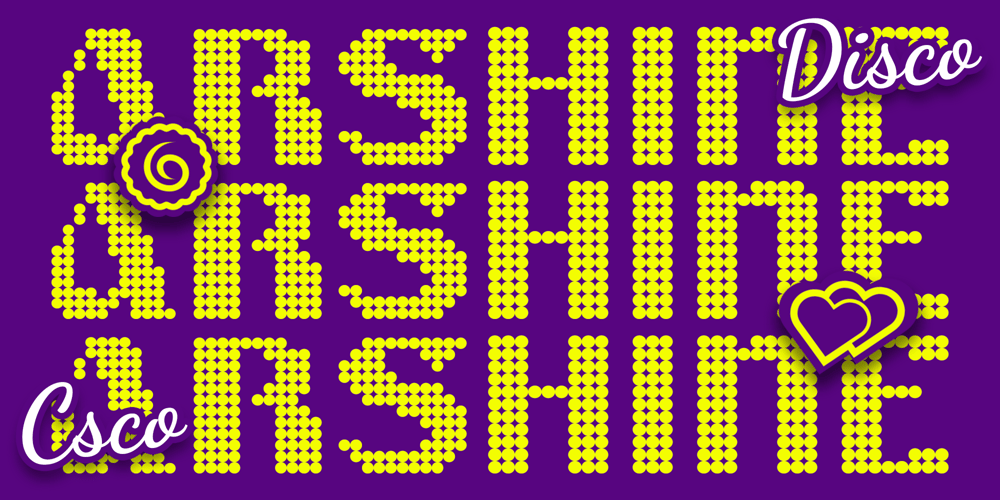
Arshine Disco Font Family was designed by Trio Nazzar Saputra, Wahyu Hadi Yuana and published by Craft Supply Co. Arshine Disco contains 2 styles and family package options. Arshine Disco: Where Retro Chic Meets Disco FeverDisco Dot Display FontArshine Disco is a stylish display font that effortlessly blends retro charm with a disco vibe. Featuring a striking dot pattern, this font is perfect for adding a touch of nostalgia and glamour to your designs.Retro Design with a Modern TwistWith its retro design and modern twist, Arshine Disco is the perfect font for projects that need a bit of vintage flair. The dot pattern gives the font a dynamic and energetic feel, making it ideal for posters, album covers, and other projects that require a bold and striking display.Perfect for Captivating DisplaysWhether you’re creating a flyer for a retro dance party or designing packaging for a disco-inspired product, Arshine Disco is sure to captivate your audience. Its bold design and unique dot pattern make it perfect for creating displays that demand attention.Versatile and Easy to UseDespite its retro-inspired design, Arshine Disco is versatile and easy to use. The font works well in both large and small sizes and can be used for headlines, banners, logos, and more. Plus, with its disco vibe, it’s sure to add a touch of retro charm to any design